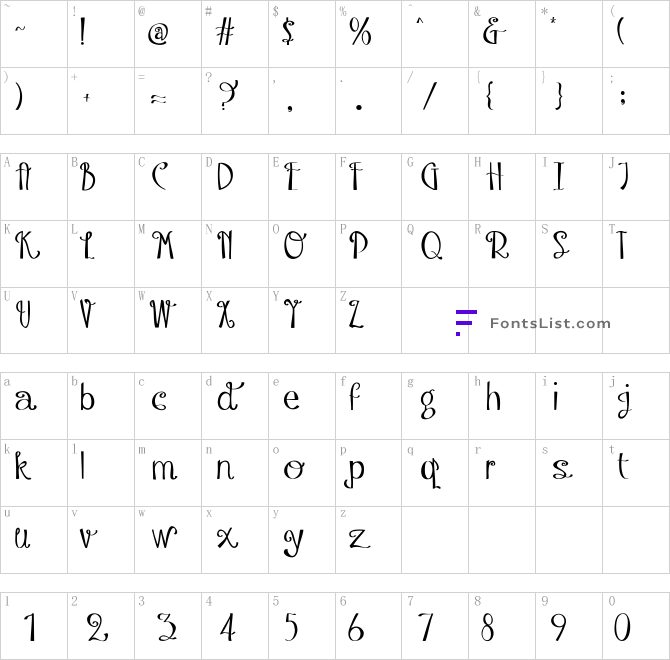
- Font Name:Austie Bost Take a Chance
Austie-Bost-Take-a-Chance.ttf is a very beautiful artistic font, Austie-Bost-Take-a-Chance.ttf is widely used in the design and printing of various books and pictures,Austie-Bost-Take-a-Chance.ttf has a strong visual impact,Austie-Bost-Take-a-Chance.ttf is a commonly used font in newspapers, magazines and books, and is used in posters, e-commerce Poster design, store design, logo design, font design and other fields.Austie-Bost-Take-a-Chance.